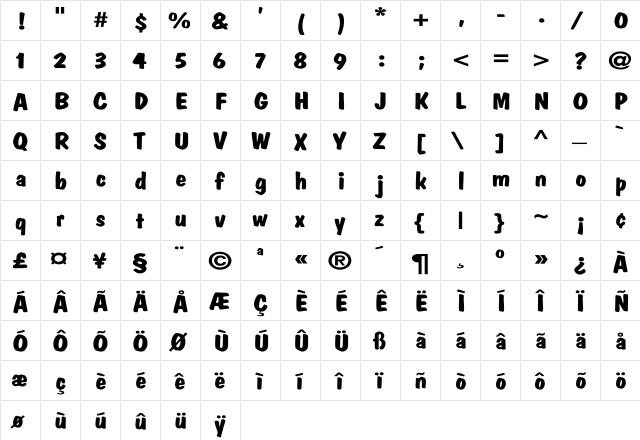
DomCasual-Bold Wd Regular
Design Context for DomCasual-Bold Wd Typeface
DomCasual-Bold Wd is a composed and adaptable typeface that performs quietly and consistently across a wide range of design contexts. The heavy weight commands attention and anchors typographic hierarchies.